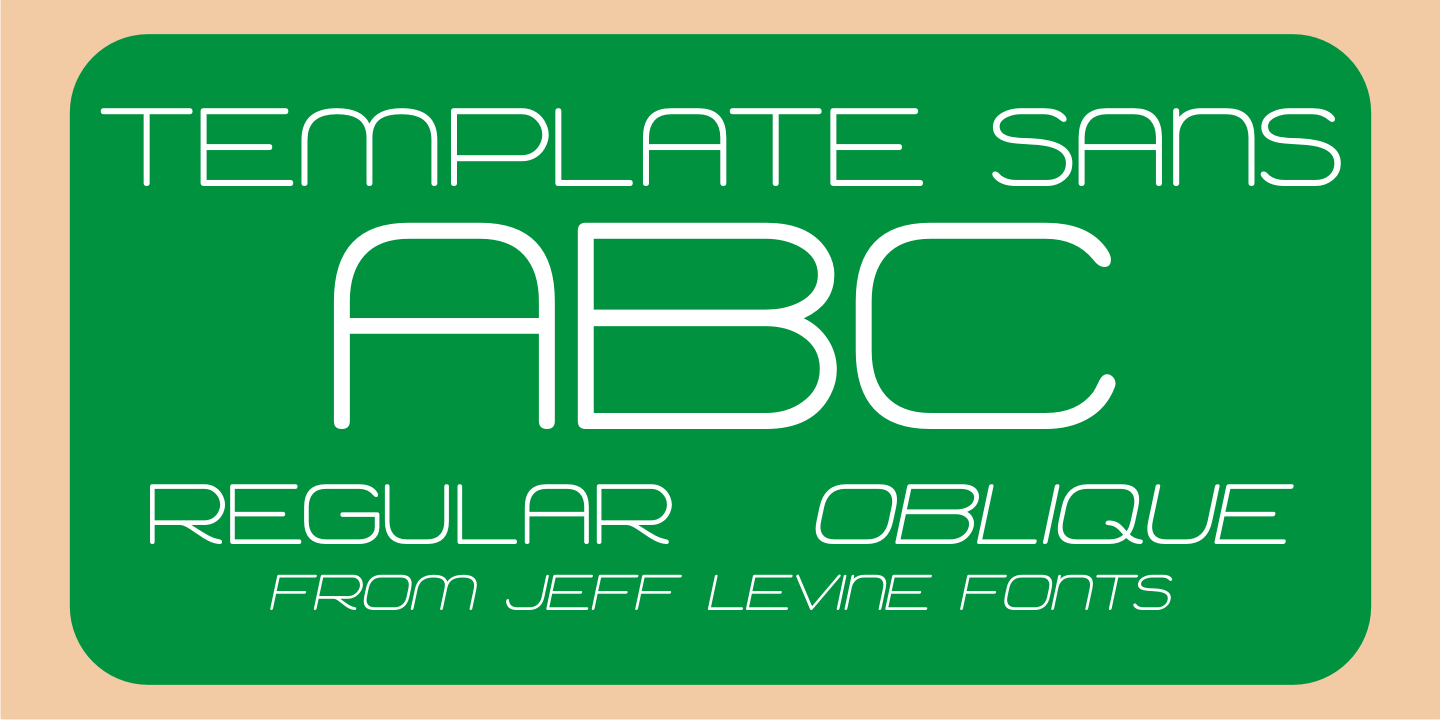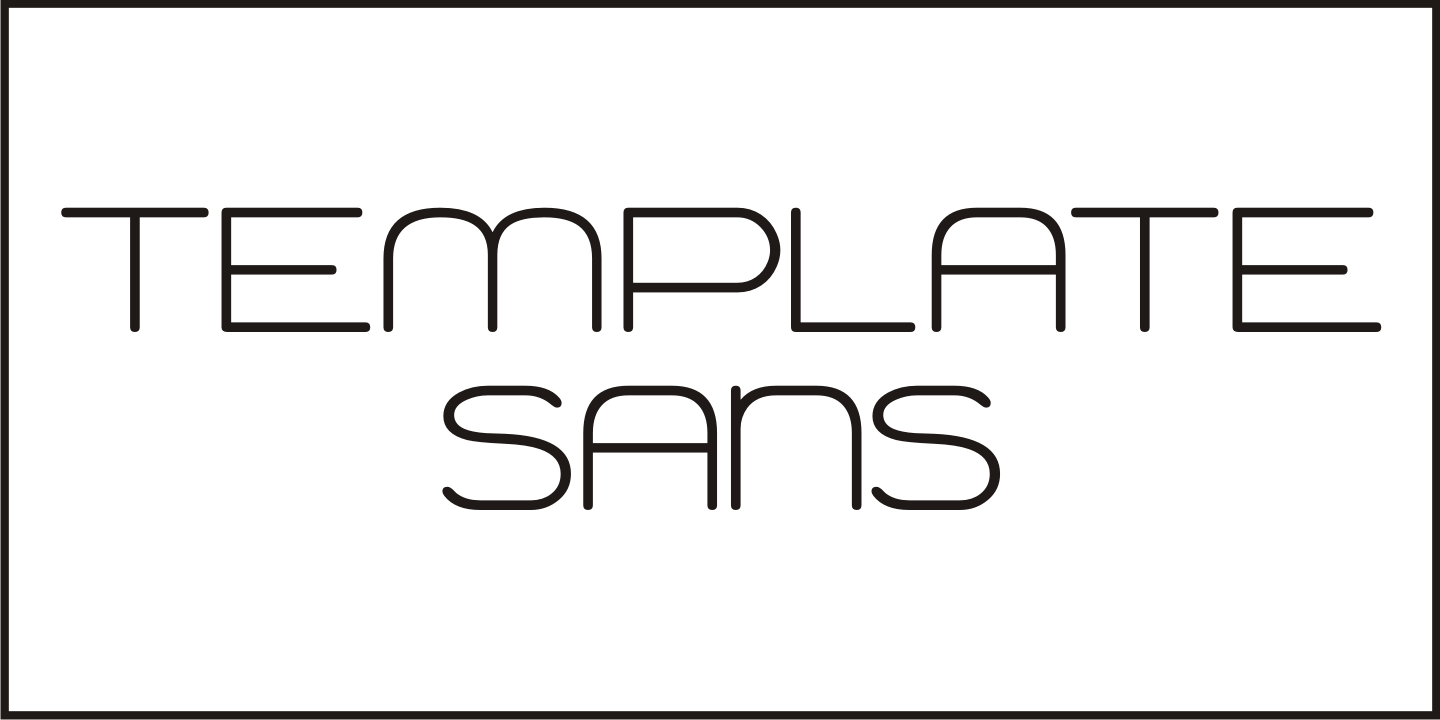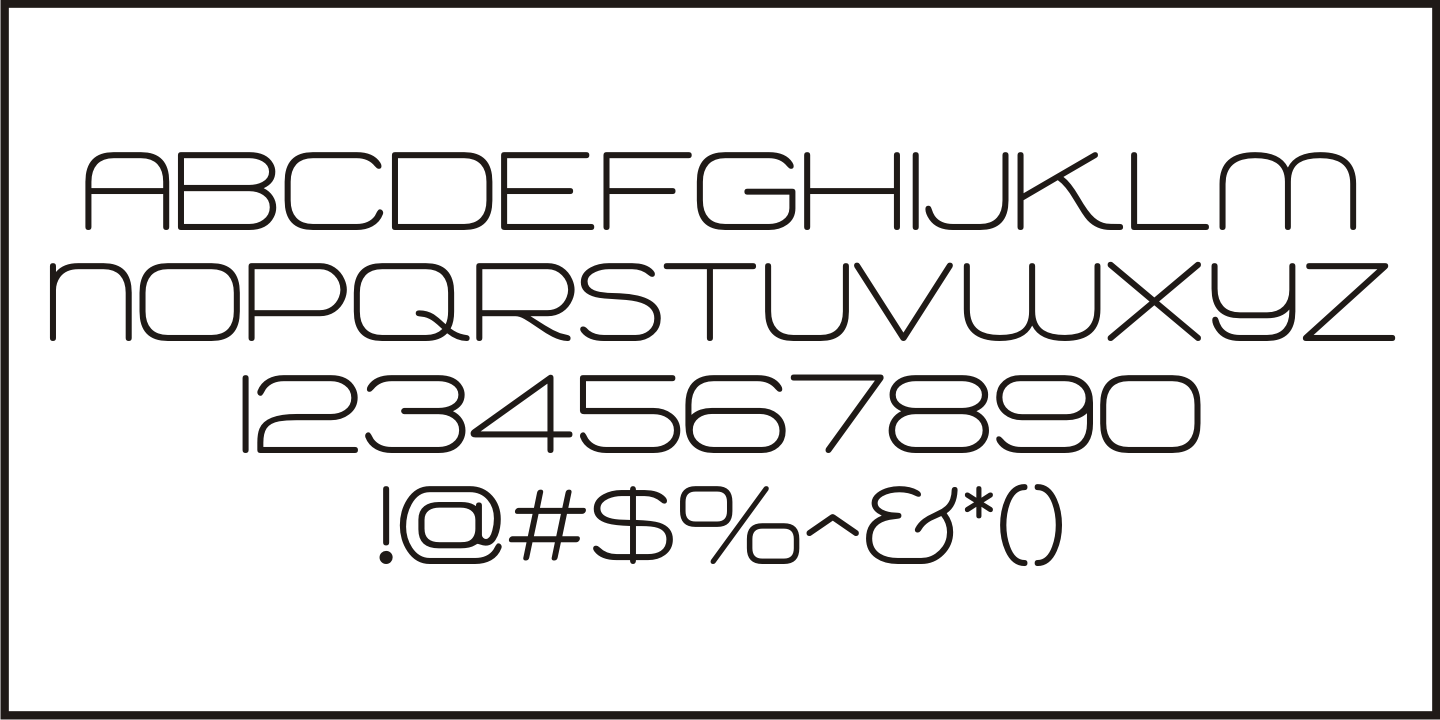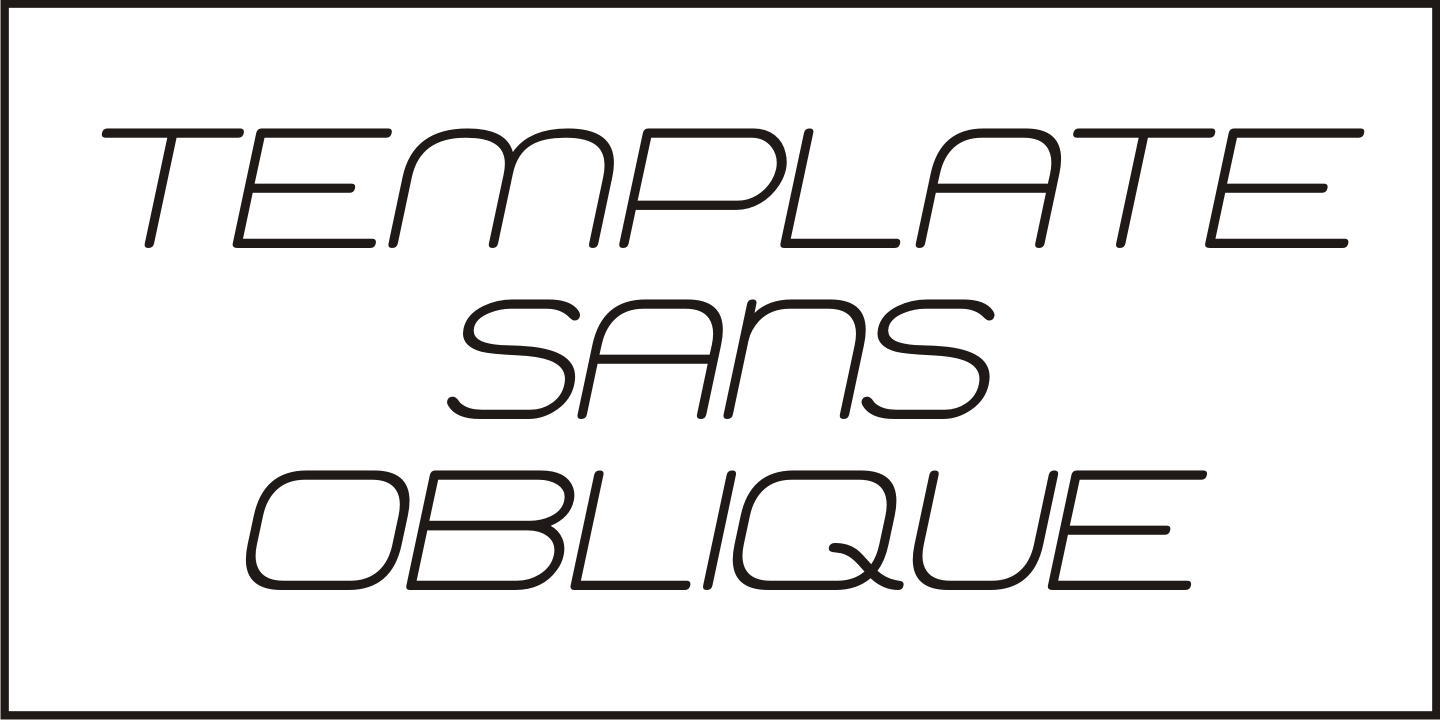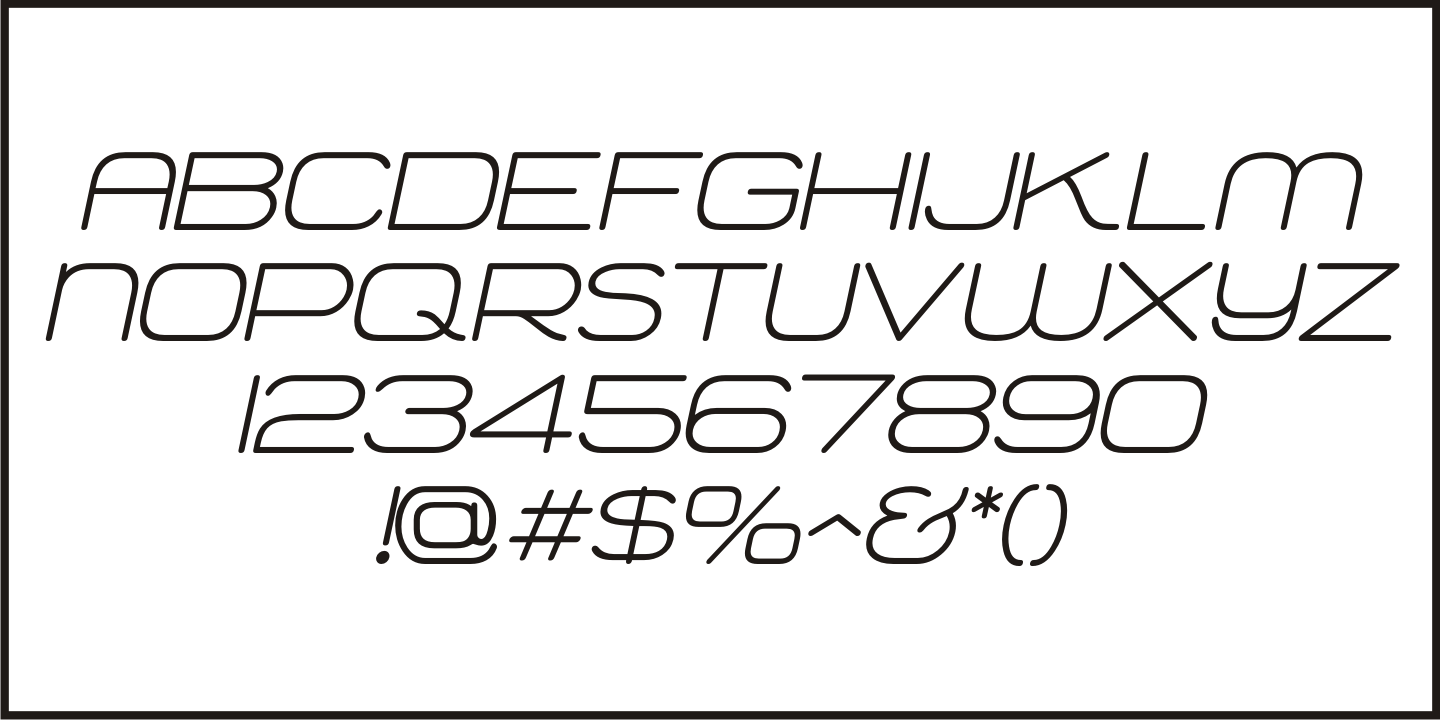
Template Sans
The Wright-Regan Instrument Company (Wrico) was one of the leading manufacturers of lettering templates for many years. Aside from their own line of products, they also did custom manufacturing.
A series of lettering guides called 'Mimeostyle' for the A. B. Dick Company of Chicago (produced for use in making mimeograph machine printing stencils) featured an art Deco squared letter design with rounded corners.
This is now available digitally as Template Sans JNL, in both regular and oblique versions.